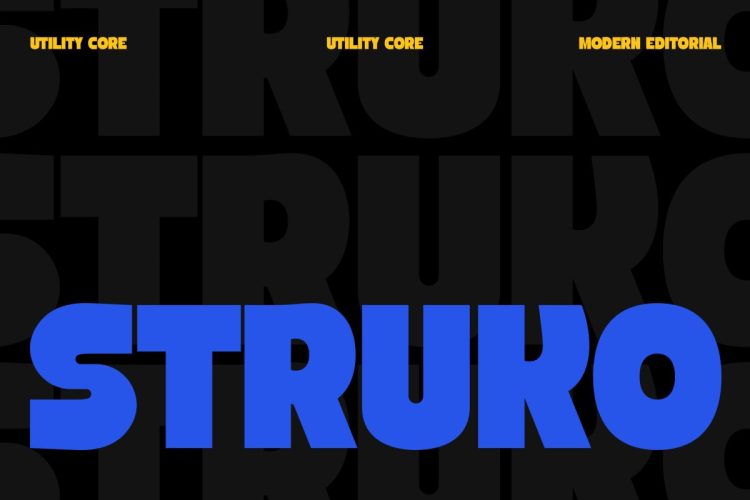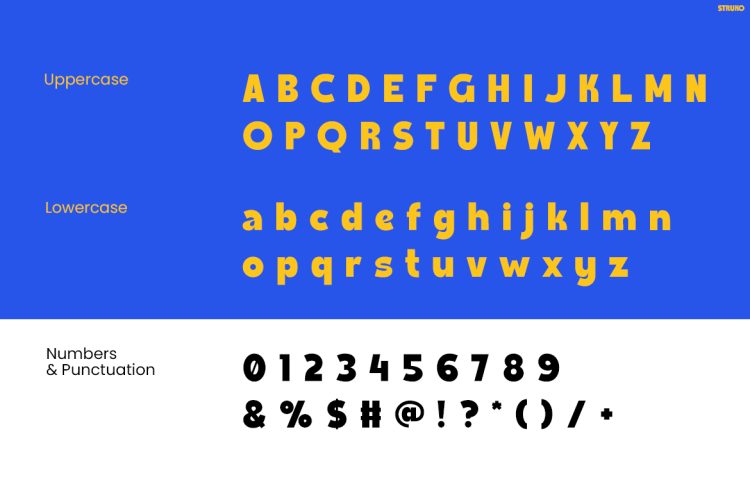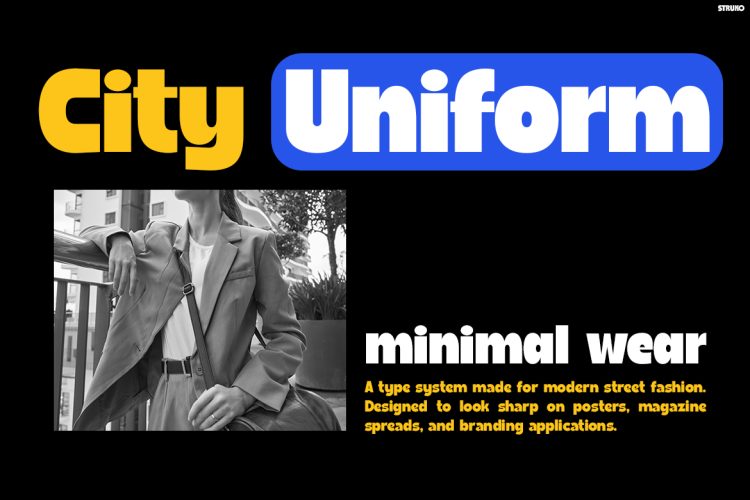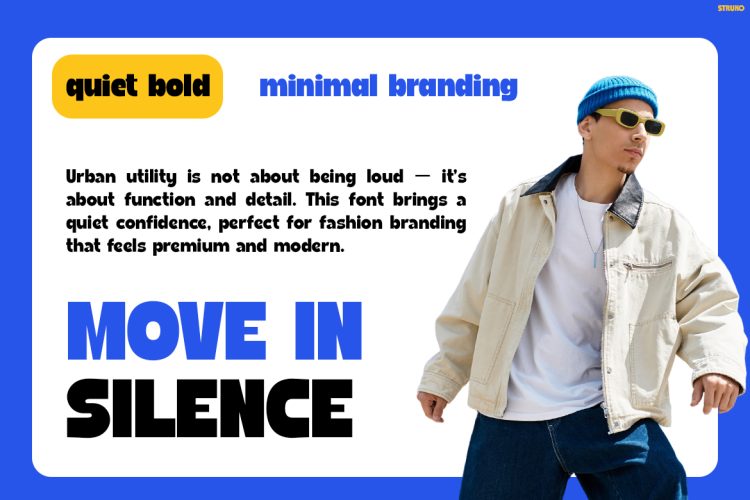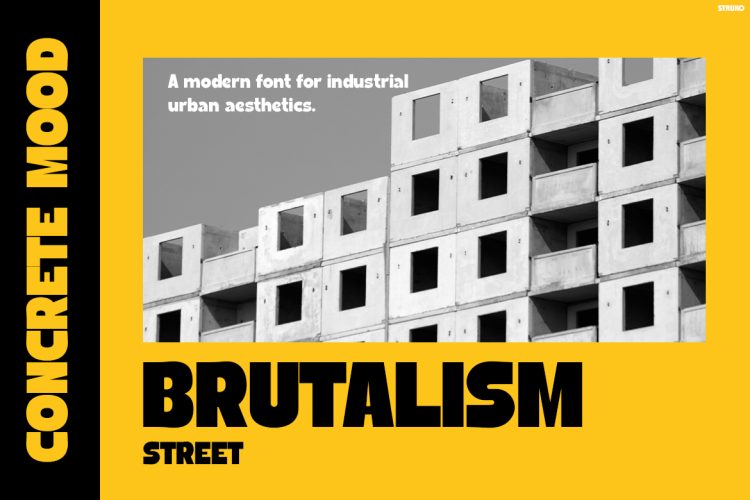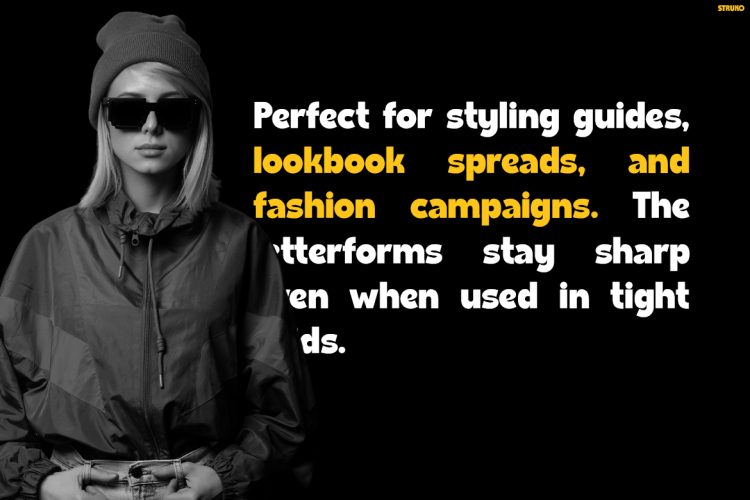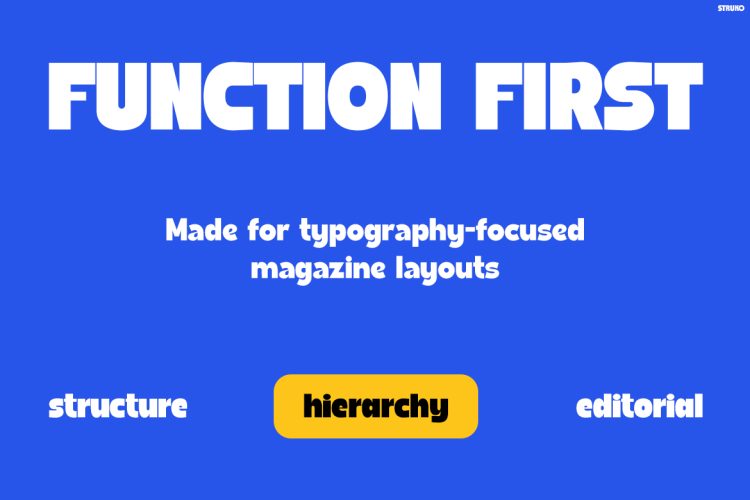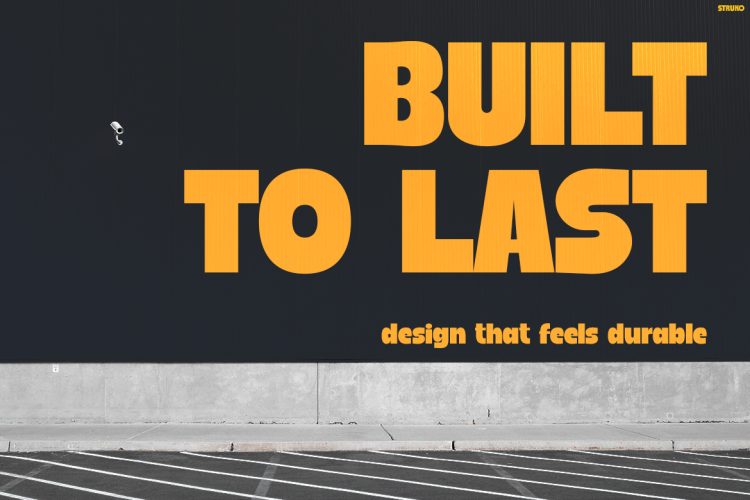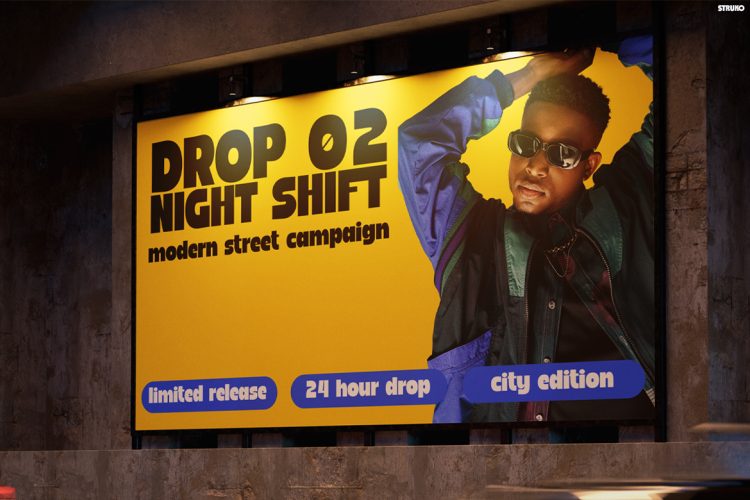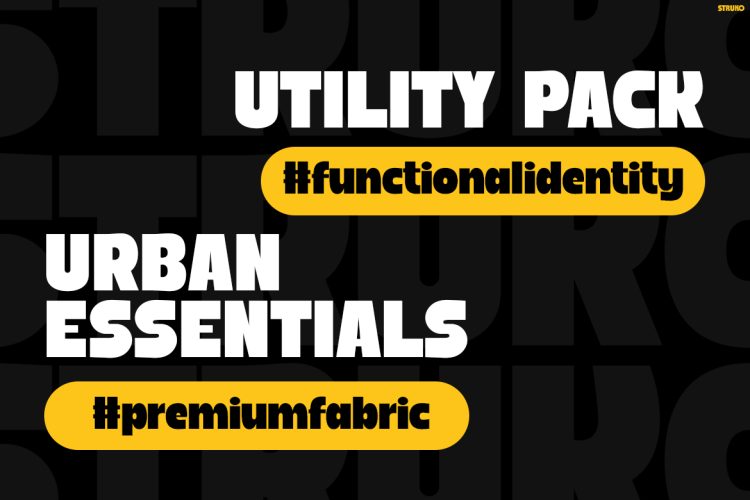
STRUKO โ Bold Urban Font with Modern Edge
Modern Font STRUKO is a strong and modern typeface designed to deliver a clean, bold, and urban visual impact. At first glance, its solid shapes and geometric structure create a confident and structured look. Moreover, the minimal yet powerful design gives it a contemporary aesthetic that feels both functional and stylish. Because of its balanced proportions and clear letterforms, the font ensures excellent readability while maintaining a bold presence. In addition, its sharp and modern vibe makes every word feel intentional and impactful. As a result, STRUKO is perfect for designs that focus on clarity, strength, and modern identity.
STRUKO is a versatile display font crafted for clean, structured, and high-impact design projects. Not only does it feature bold and minimal letterforms, but it also pairs perfectly with grid-based layouts, editorial design, and urban branding. Furthermore, its strong visual rhythm helps create a clear hierarchy and professional look. Therefore, whether you are working on posters, branding, or digital content, STRUKO adds a modern and confident touch. Ultimately, it transforms simple text into bold visuals that feel functional and stylish.
Because of its modern and structured style, Modern Font STRUKO is ideal for:
- Editorial layouts and magazine headlines
- Urban fashion branding and streetwear designs
- Posters, lookbooks, and promotional graphics
- Architecture and minimal design projects
- Corporate branding and modern presentations
- Social media content with a bold, clean style
In conclusion, Modern Font STRUKO is the perfect choice for designers who want strong, clean, and modern visuals. So, add this powerful font to your collection today and create designs that look sharp, stylish, and built to last.